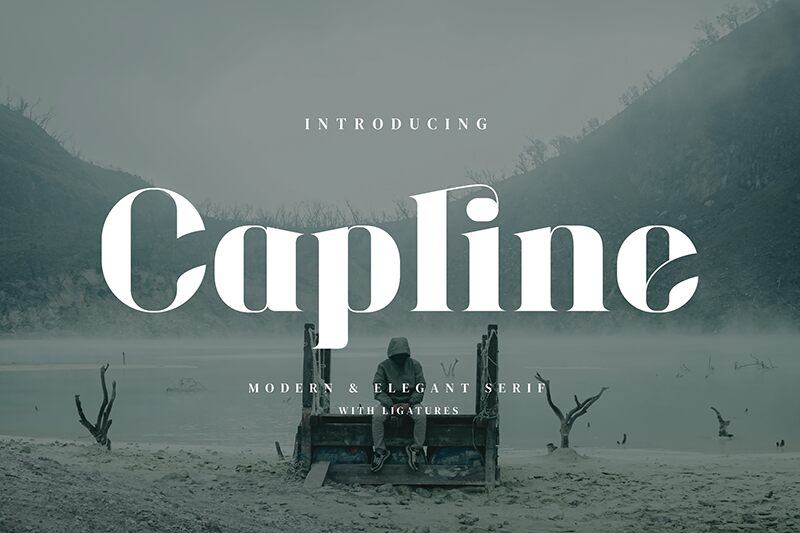
Capline
Capline font by Biham Santoso is a robust, bold serif typeface that is second to none. Capline has been characterized as refined with a sophisticated feel, which lends itself well to every sort of contemporary or traditional project. An elegant free serif font, Capline does publicize both private and commercial designs.
Use it in graphics for blogs, magazines, newspapers, signage boards, titles inside books, menus (restaurant or catalogue), logos and stationery kit designs such as business cards and letterheads. Suitable for websites (both WordPress and Custom HTML) inside headers and sub-headers as well!